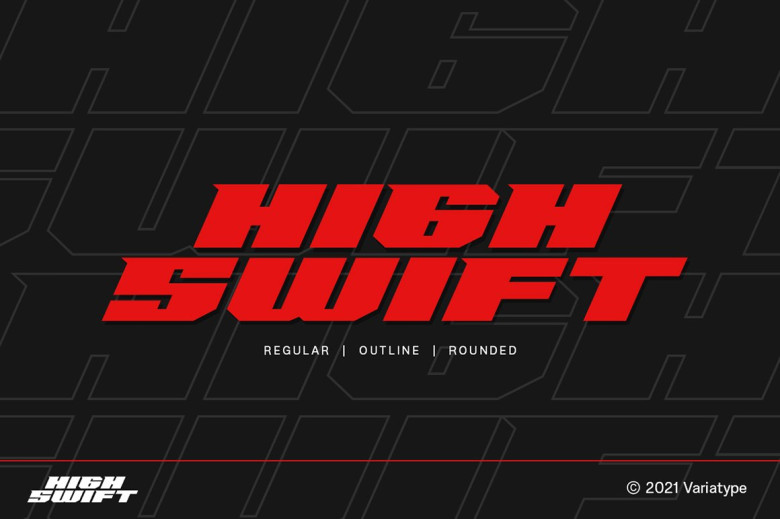
High Swift Font
High Swift is a sporty dynamics display font and perfect for powerful corporate branding, copy ad, logotype, and much more to achieve your modern way to express dynamic. Thank you, and have a nice day!
High Swift Display Font